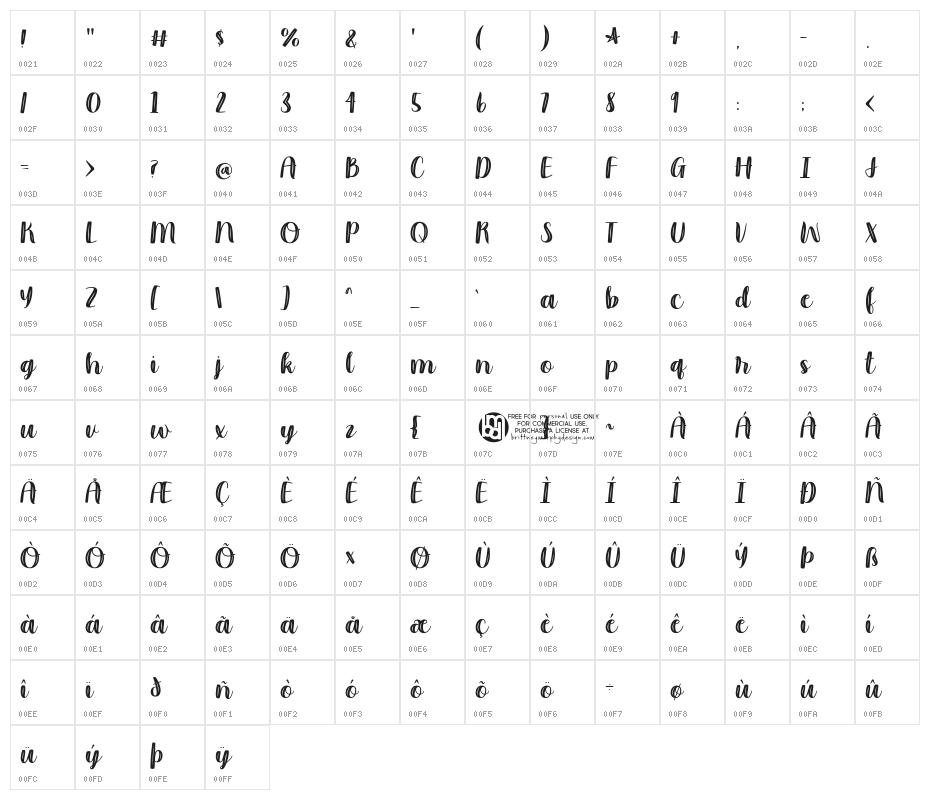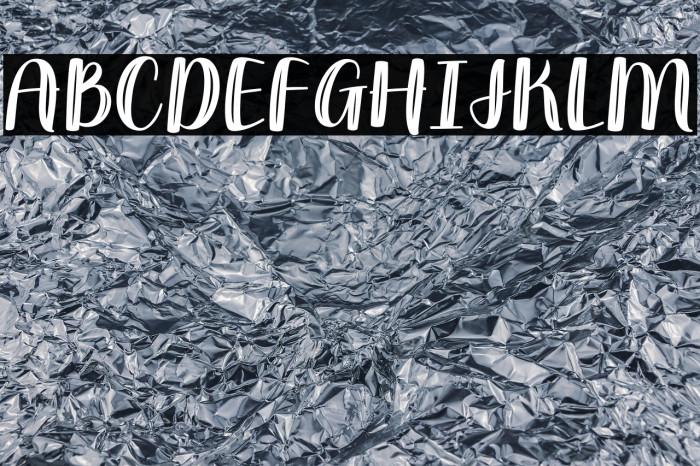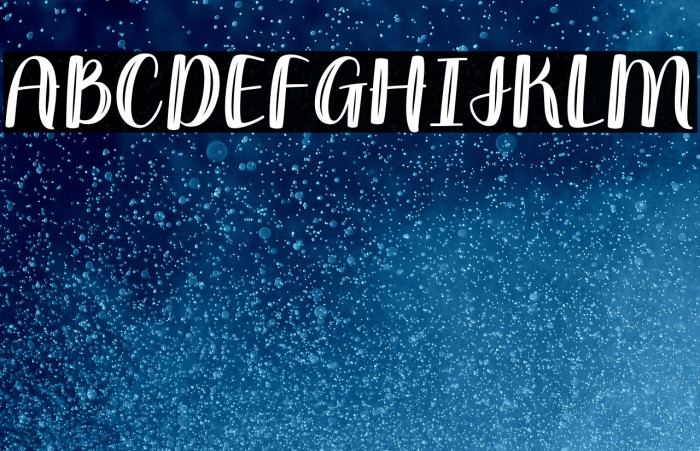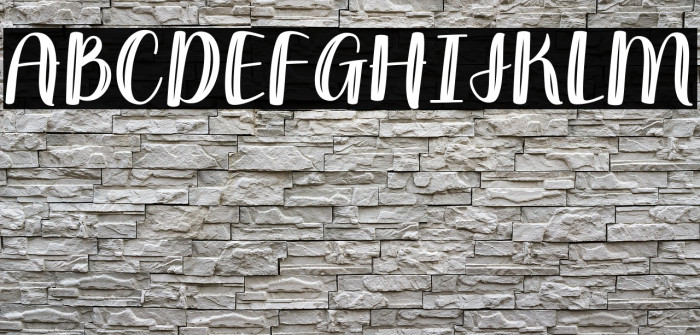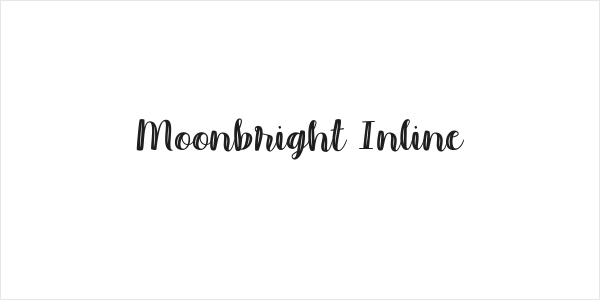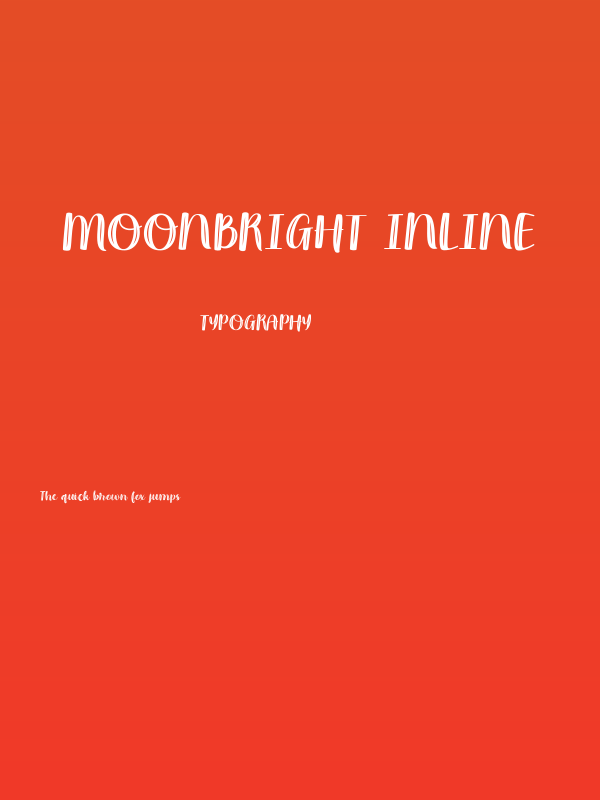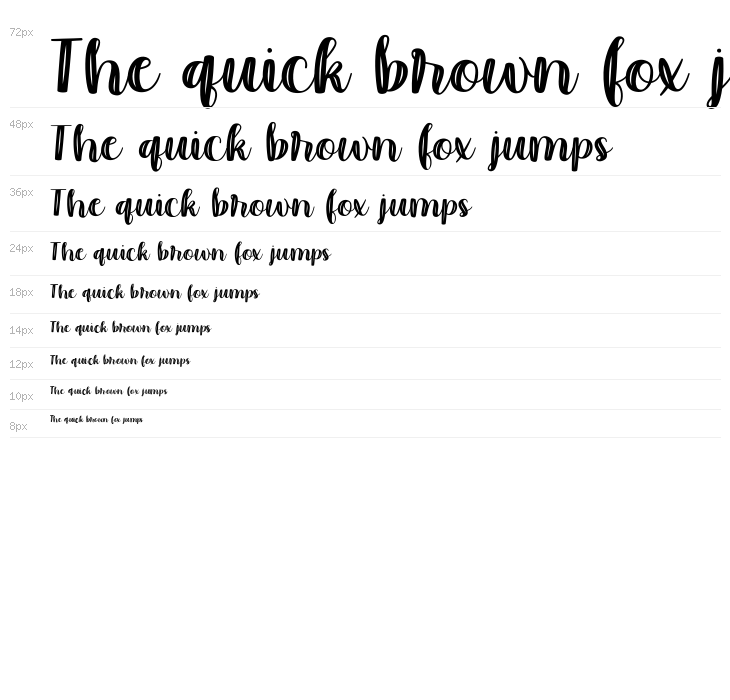
Moonbright Inline Font
Moonbright Inline Description
This font features a playful and dynamic script style with a bold and flowing appearance. The letters are characterized by their smooth, rounded curves and consistent stroke width, giving them a lively and energetic feel. The uppercase letters are slightly taller and more prominent, while the lowercase letters maintain a cohesive flow. Numbers and special characters are designed to match the overall aesthetic, ensuring a harmonious look across all text. The font's inline design adds a unique touch, making it stand out in various applications.